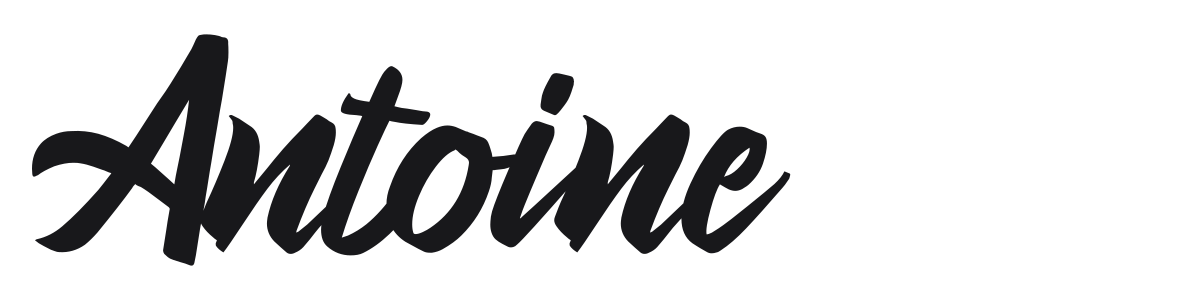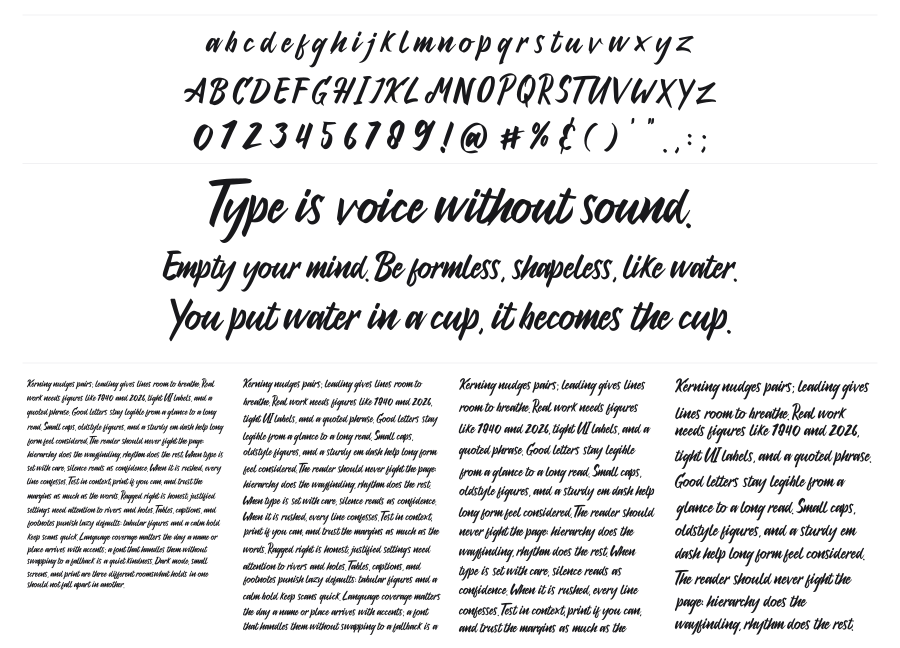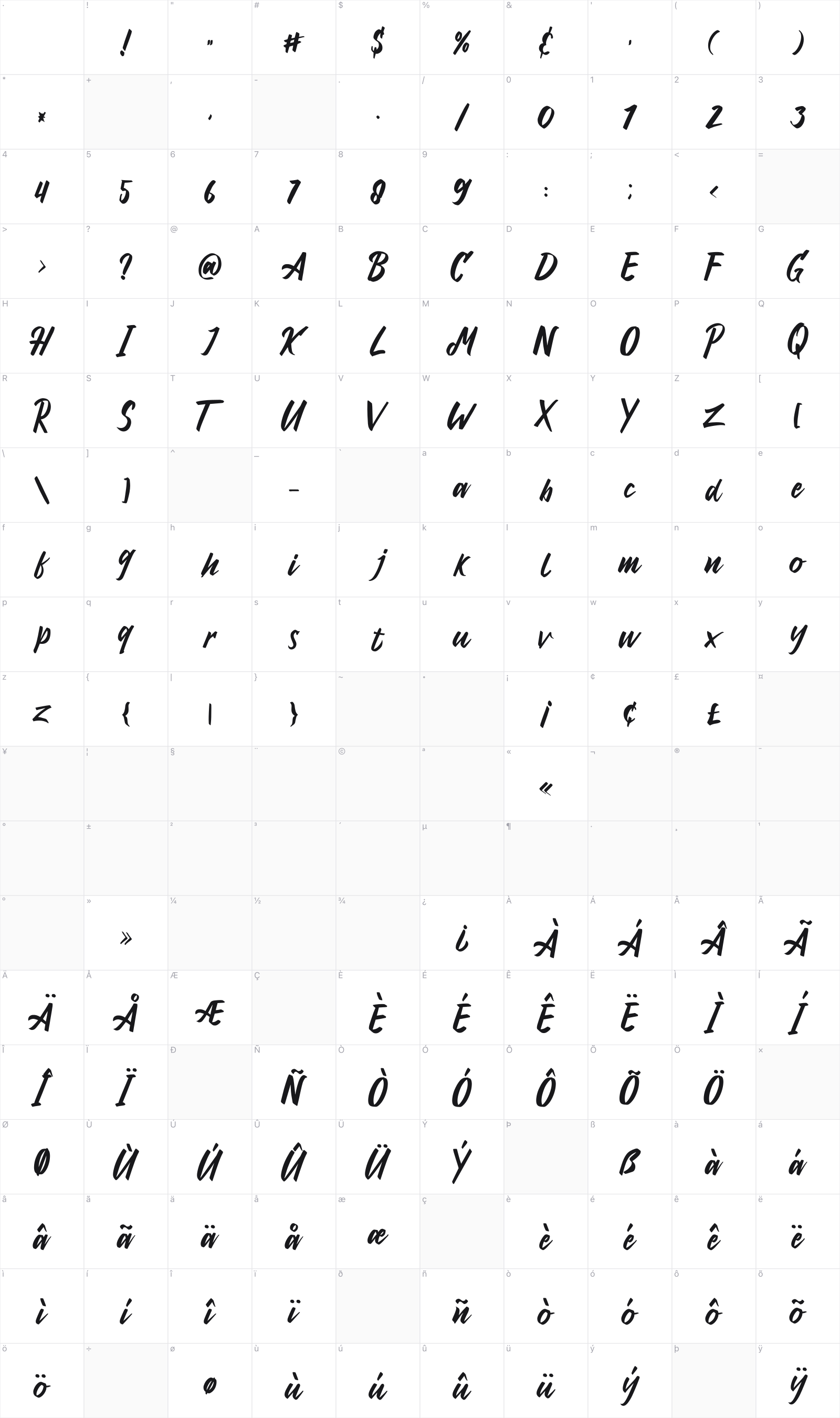
Antoine
Antoine is a bold brush script with a confident, ink-soaked swagger and heavy forward lean. The thick-to-thin stroke contrast gives it a hand-lettered energy that feels both casual and commanding at headline sizes. It carries the DNA of mid-century sign painting and works hard on packaging, album covers, and brand identity.